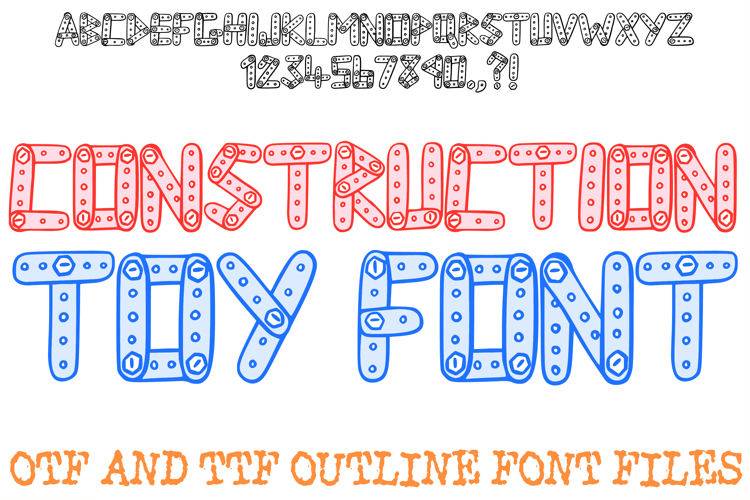
The Construction Toy Font is a highly creative, mechanical display typeface that replicates the look of classic engineering playsets. Each letter and number is constructed from interlocking toy bars, detailed with realistic circular peg holes, connecting joints, and hand-drawn nuts and bolts. This structural, playful design makes it an exceptional choice for designers working on kids' STEM workshop fliers, toy store branding, children's book titles, and birthday party invitations.
The design captures a sense of hands-on building and nostalgic play, transforming structural building blocks into an entire working alphabet. The bold, rounded bar elements provide a solid layout presence that is full of character. Whether you are creating educational graphics, designing tech-themed stickers for kids, or building a playful logo, this font adds an authentic, blueprint-style fun to any creative workspace.
Authentic Mechanical Details: Built-in internal peg holes, structural lines, and bolt heads give the letterforms a highly detailed, realistic toy construction appearance.
Bold Structural Framework: The thick, rounded toy-bar design ensures maximum visibility and high impact for titles and headers.
Playful STEM Vibe: Perfectly tailored for themes surrounding engineering, architecture, building games, and educational kids' products.
Clean Hand-Drawn Outlines: Sharp perimeters and well-defined interior elements keep the messaging highly legible across print and digital platforms.